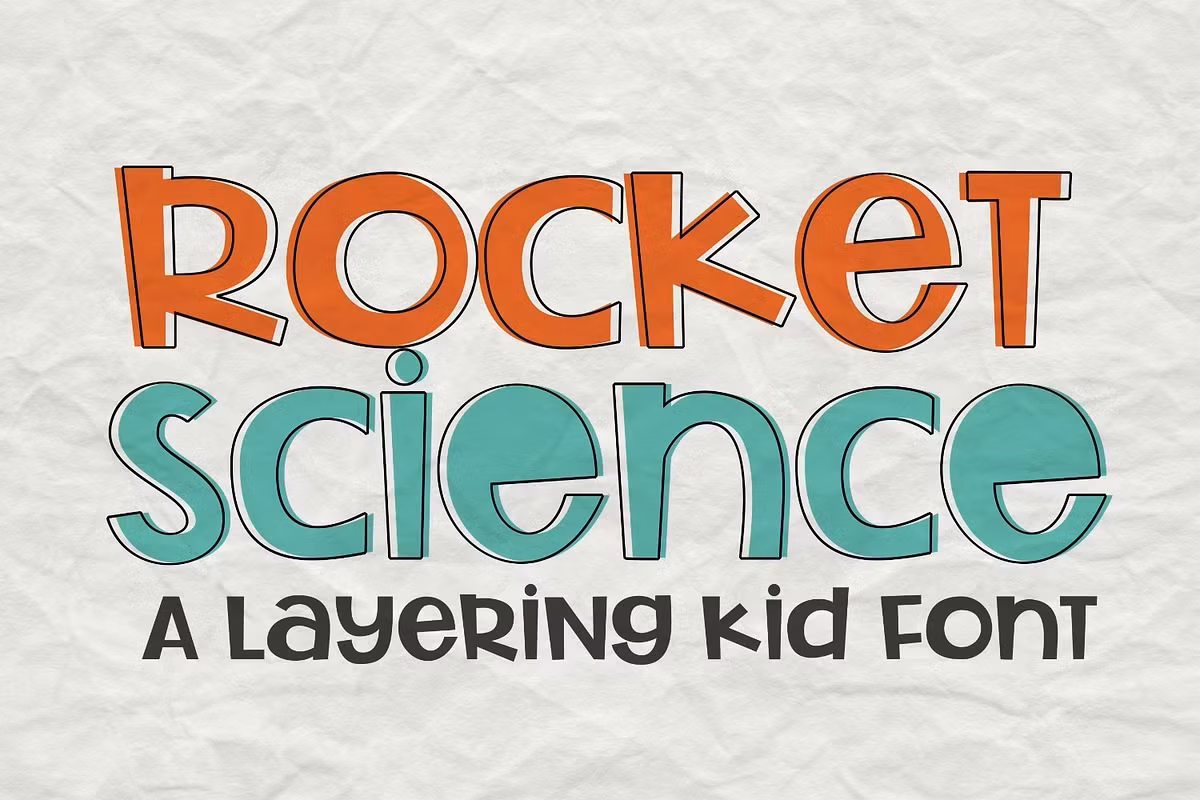
You must purchase this font for commercial use. However, you can download Rocket Science Layering Font Free Download for testing purposes. Rocket Science is a dynamic and creative layering font that allows you to build unique and bold typography designs. Perfect for logos, posters, branding, product packaging, and headlines, this font offers flexibility by allowing you to stack different layers for a more textured and dimensional look.
With a modern design and strong geometric structure, Rocket Science Layering Font lets you combine multiple font layers to create eye-catching, customized typographic compositions. Whether you’re designing for a tech brand, a futuristic product, or a bold editorial layout, this font offers endless possibilities for innovative and striking typography.